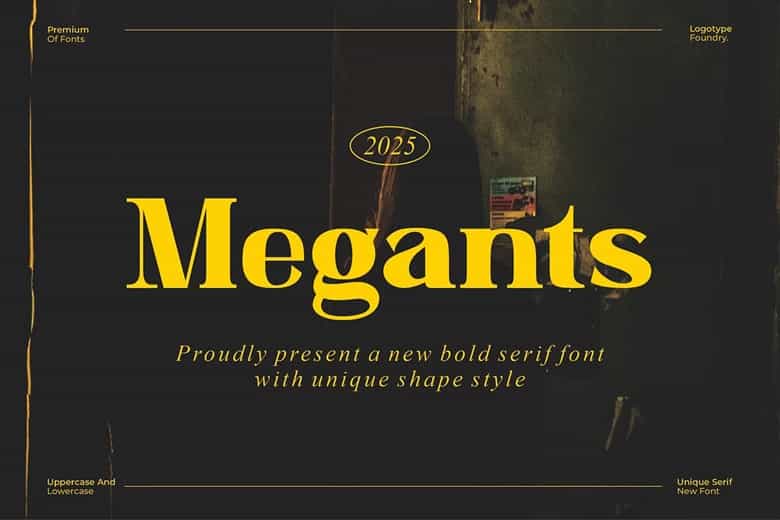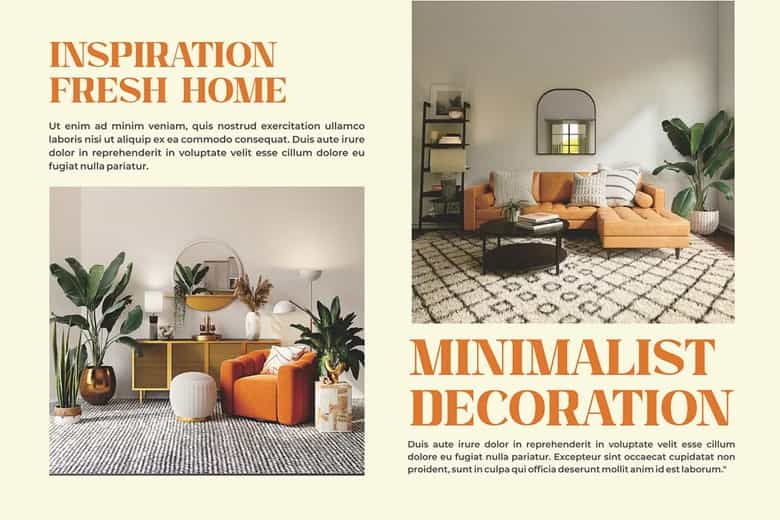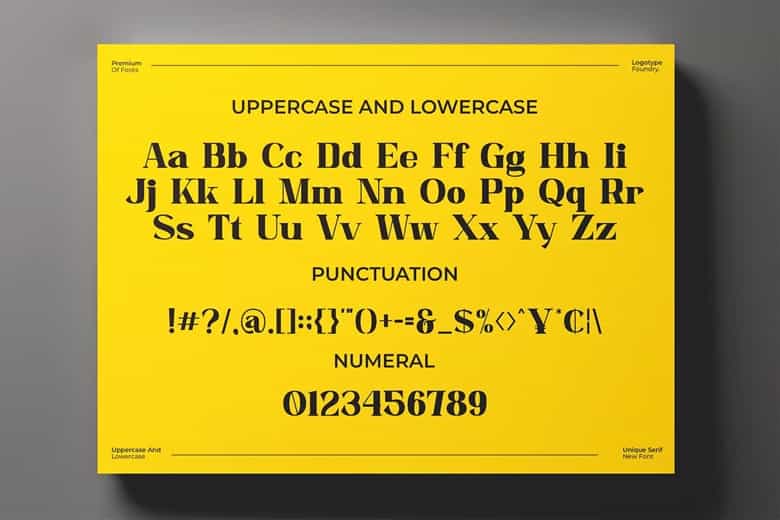
Discover Megants Font, part of the Serif collection—a versatile and unique font perfect for adding a personal touch to your projects. Download it for free and enjoy crafting designs with style, from invitations to social media posts. This font is available exclusively for personal use, giving you the freedom to create without limits. Unlock your creativity with Megants Font today!
Megants is a classic theme, trendy, bouncy, and cute display style with a serif font. The wood theme has a unique character on it. This is perfect to be used in combination with invitation card designs, company logos, movie names, movie titles, business cards, book titles, brand names and other such designs.